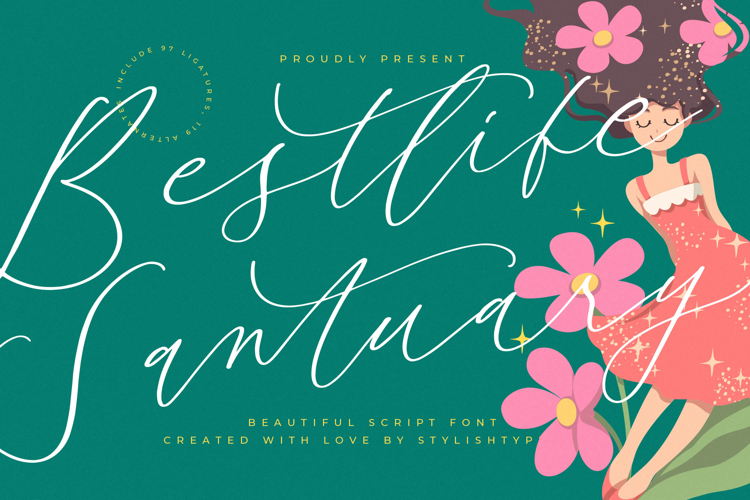
Bestlife Santuary - Beautiful Script Font
Bestlife Santuary - Beautiful Script Font means securing a visual tool that communicates quality, artistry, and deliberate design. Its ability to create unique wordmarks and visually captivating headings ensures your product stands apart from the competition. Download this professional script today to infuse your next campaign with unmatched elegance, securing a sophisticated visual identity instantly and effectively.